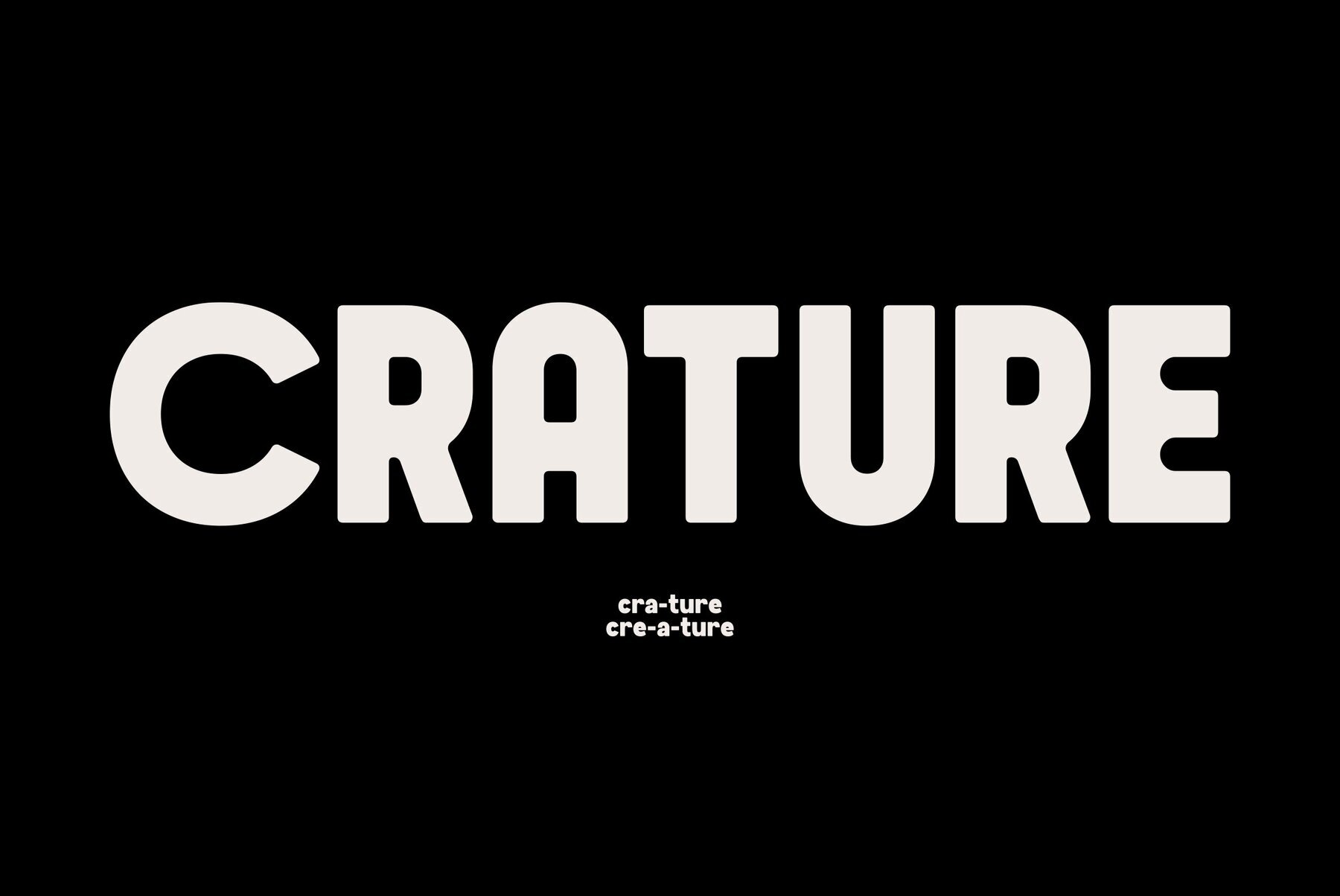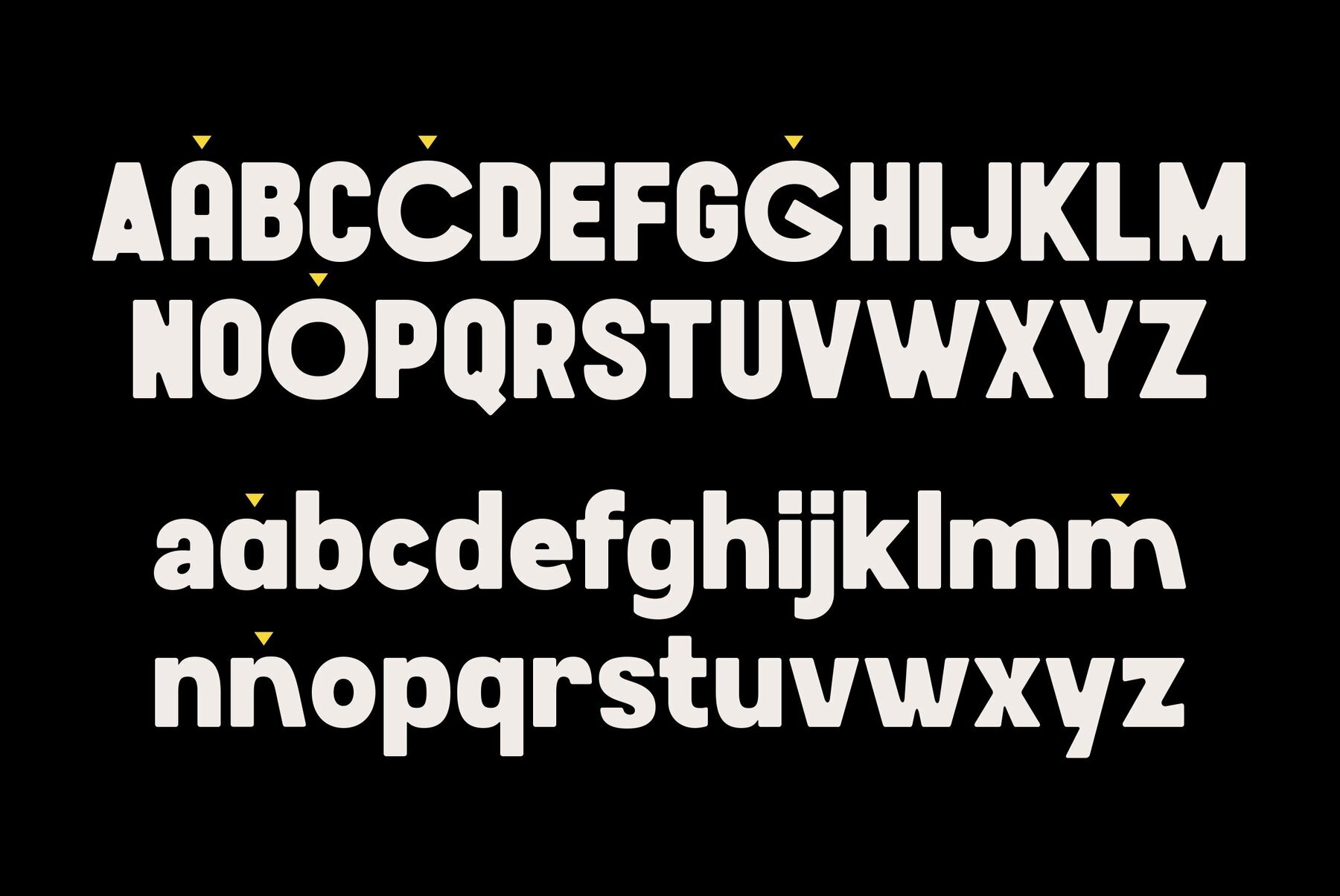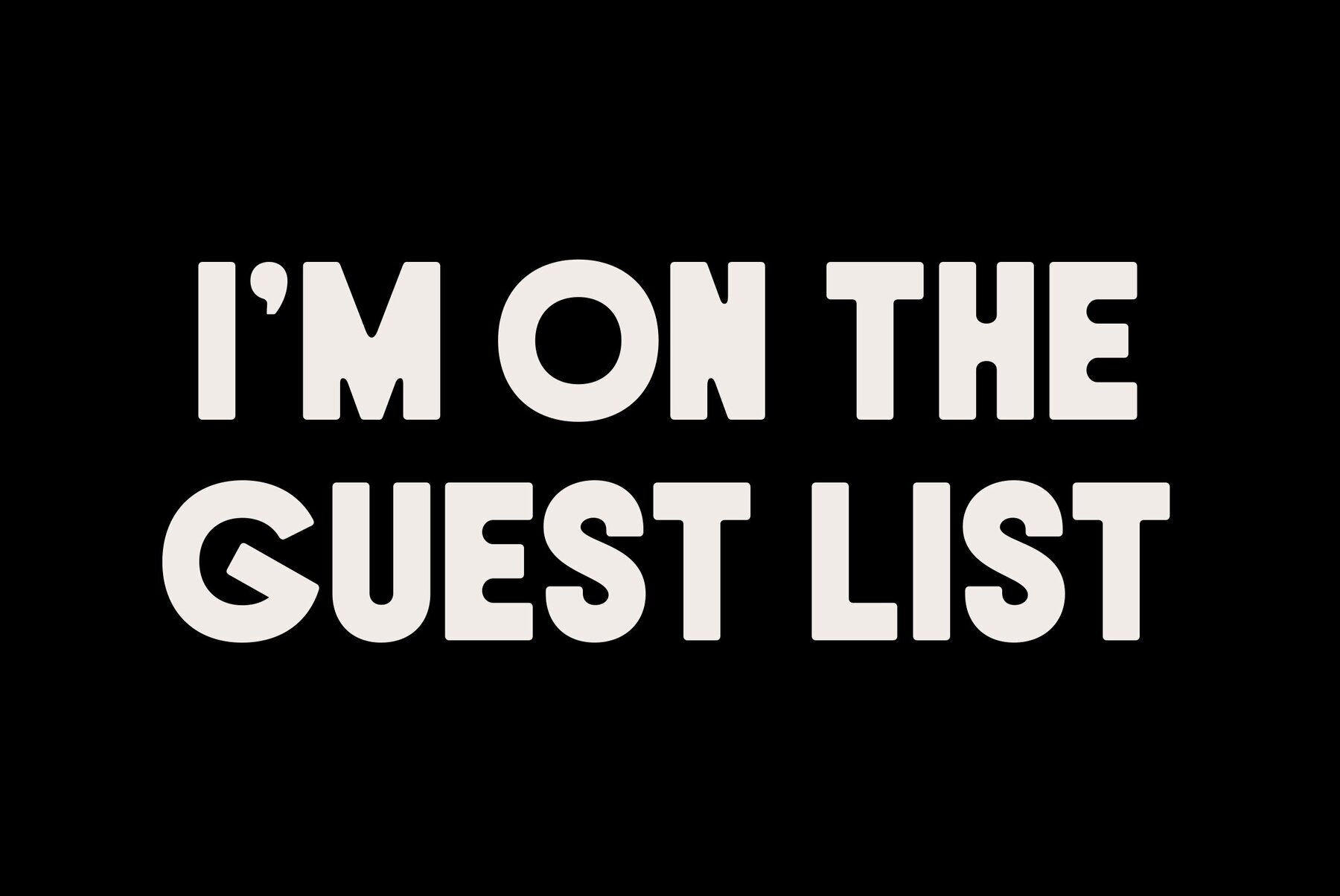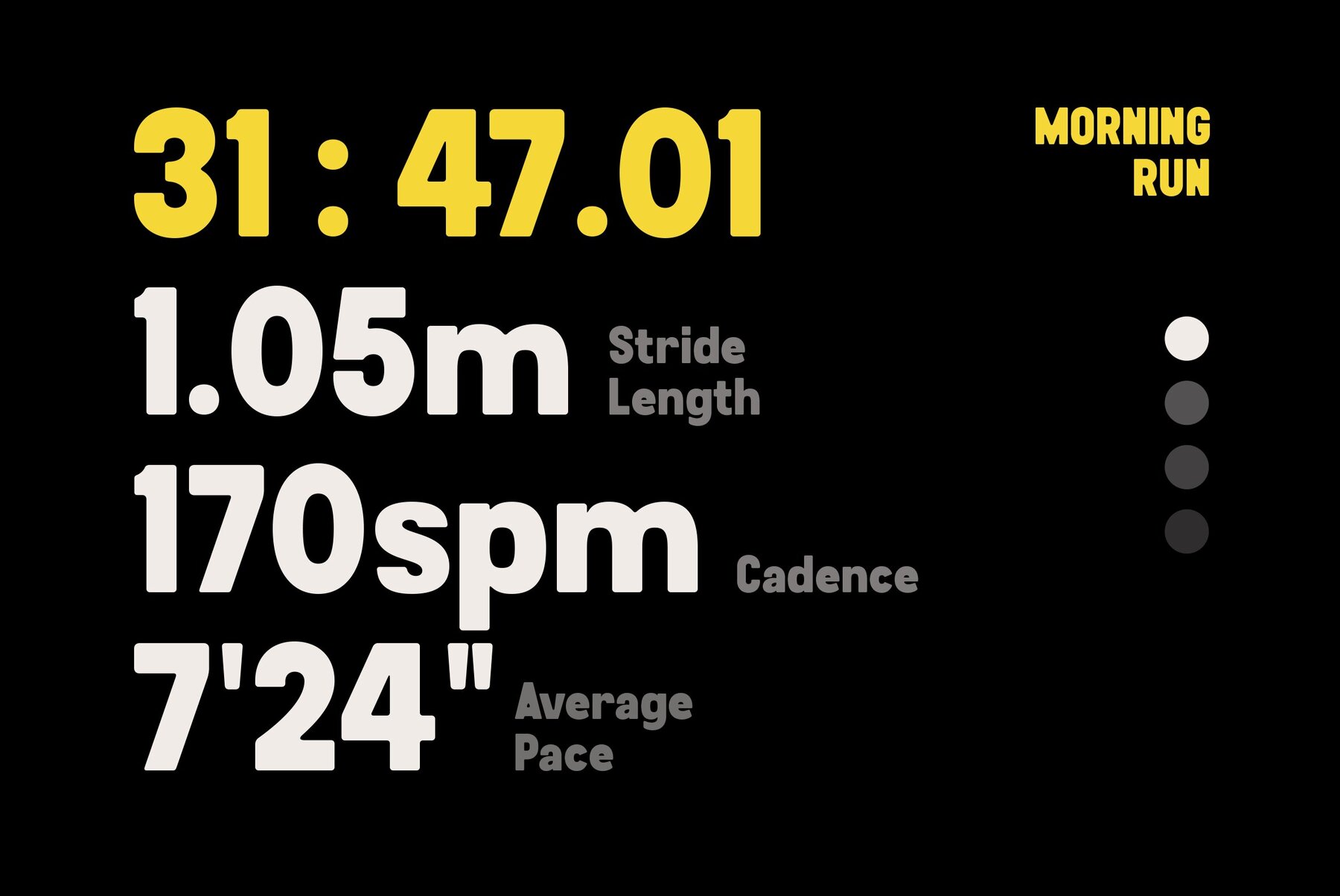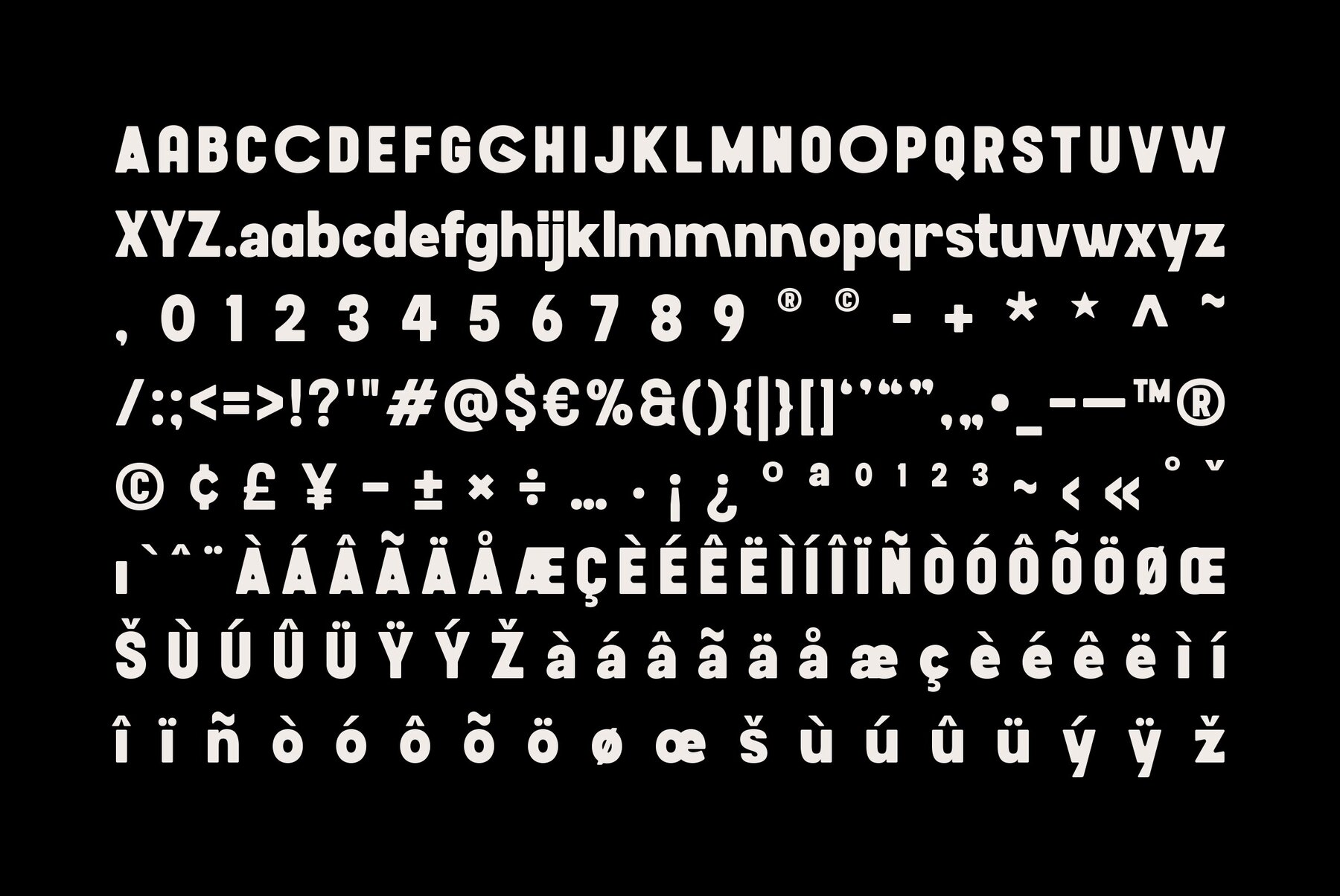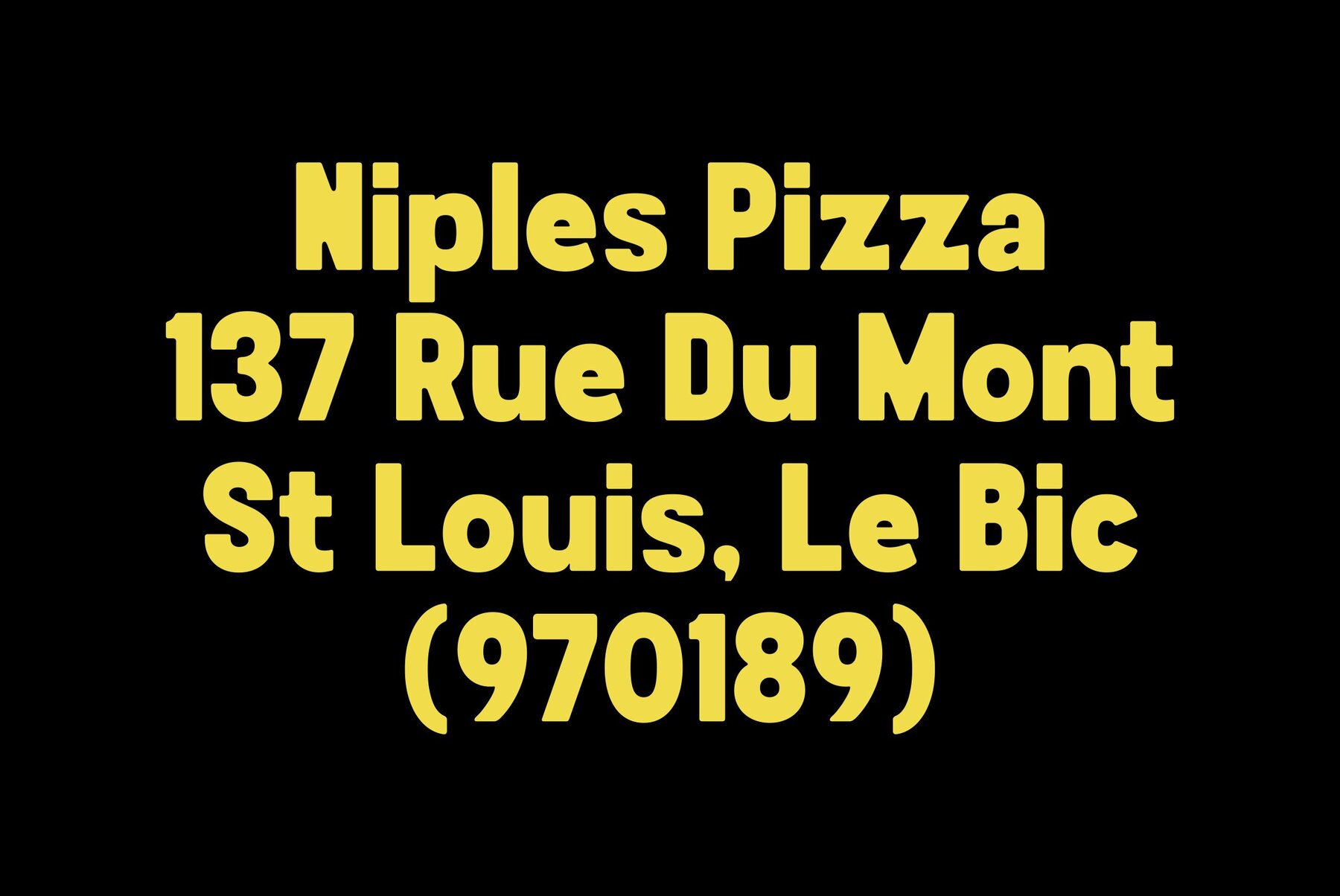
Crature Font
Crature
The Crature font embodies modern simplicity, distinguished by its clean and minimalist aesthetic. Featuring straight, uncomplicated lines, this sans-serif font is a versatile choice for an array of design ventures including branding, editorial layouts, and web design. Its contemporary allure is perfect for achieving both modernity and elegance in any project. Notably, Crature offers stylistic alternates that expand its creative flexibility, allowing designers enhanced freedom to tailor typography to their unique vision. This sleek font delivers a sophisticated edge, ensuring your designs stand out with clarity and elegance, making it an appealing option for those dedicated to modern aesthetics.Crature: Modern Sans-Serif Font with Stylistic Alternates